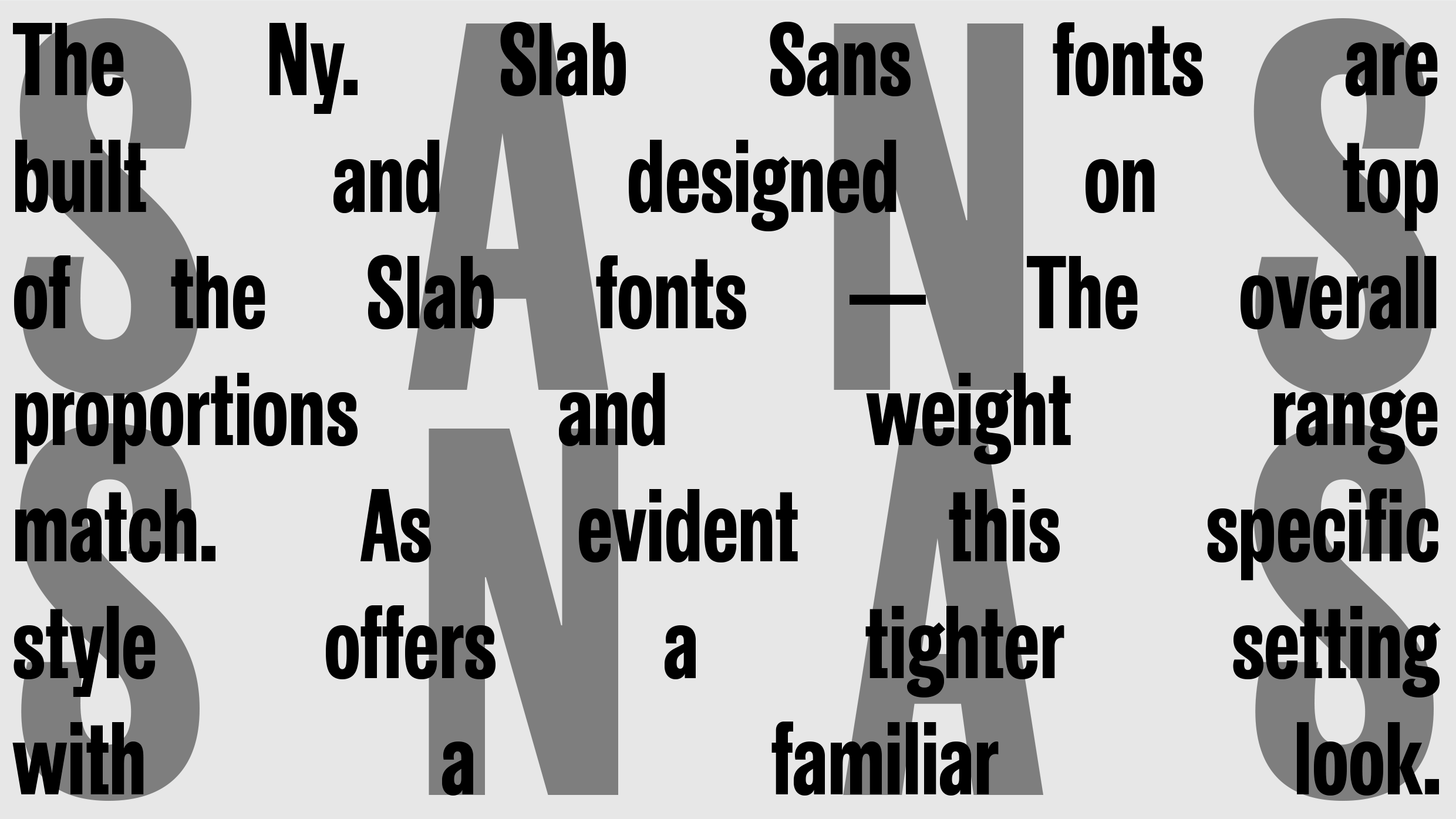
Ny. is a family of custom typefaces originally designed for the redesign of The New York Times Magazine in 2015. The inspiration for the serif font is Stephenson Blake’s Garamond-like metal typeface Mazarin, also known as ‘Astree’ from the French foundry Deberny & Peignot. The Gothic Blackletter design of The New York Times Magazine logotype also influenced the typeface, especially in sharpness and contrast – most noticeably in the Display and Headline fonts. The serif text fonts also share some of these features, although the proportions, contrast, and design details have been crafted anew to aid legibility in smaller point sizes. The name ‘Ny’ is a reference to where the fonts were first used, New York, but the word ‘Ny’ also means ‘New’ in Danish – the birthplace of the principal typeface designer, Henrik Kubel.The Slab Sans fonts are built on the proportions and weight range of the Slab Serif. This style offers a tighter setting but with a familiar look.
| Font name: | Ny. Slab Sans |
| Font category: | Sans |
| Manufacturer: | A2-TYPE |
| Designer: | Henrik Kubel |